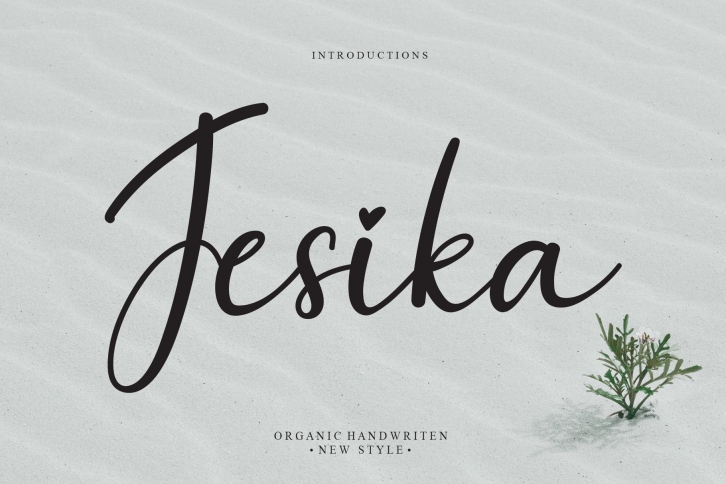
Jesika is a gorgeous font that was realeased on October 16, 2021. The font can be used in many style contexts and design environments. Perfect for invitations, magazines, websites, logos, and more! It was designed by Scratchones and the file size is 20.86 MB. Thanks for checking out this font!